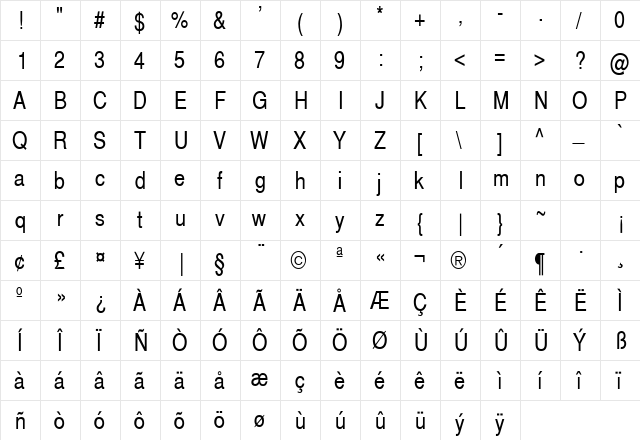
ft10 Regular
Design Context for ft10 Typeface
ft10 is a composed and adaptable typeface that performs quietly and consistently across a wide range of design contexts.